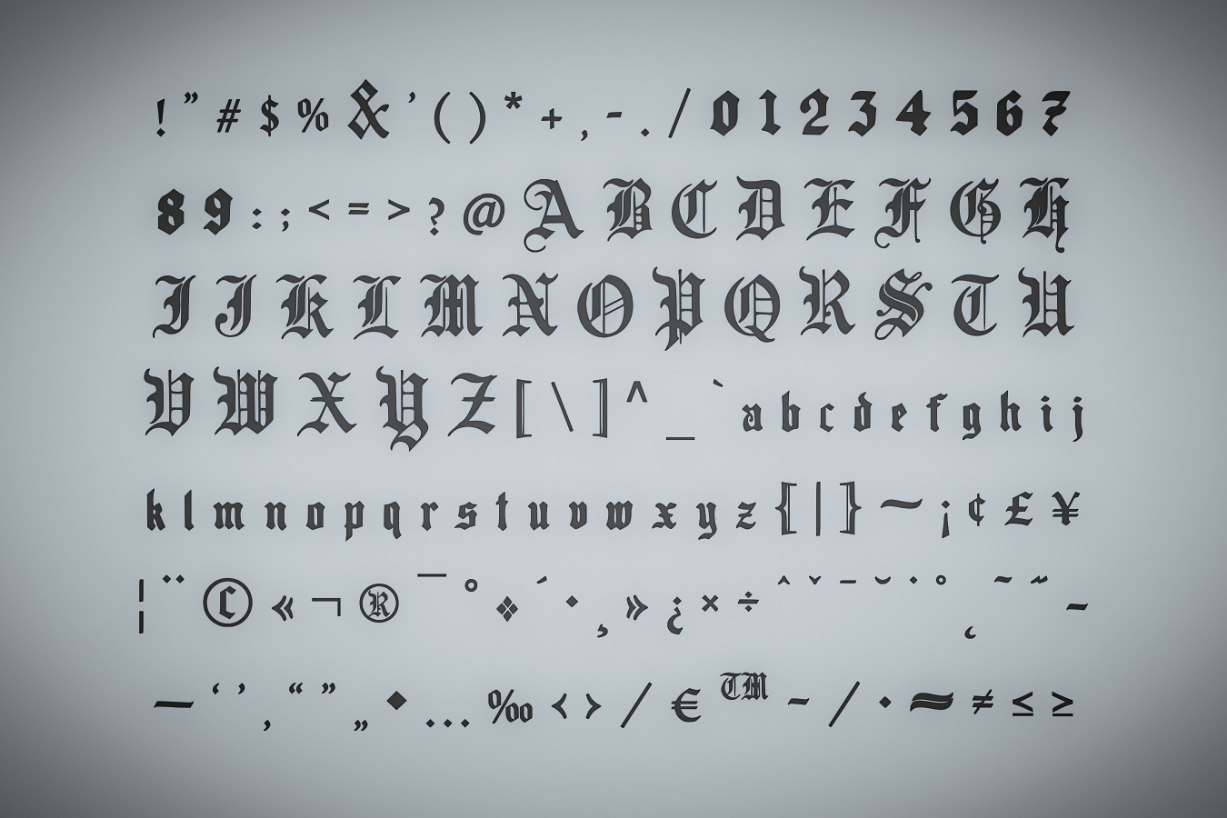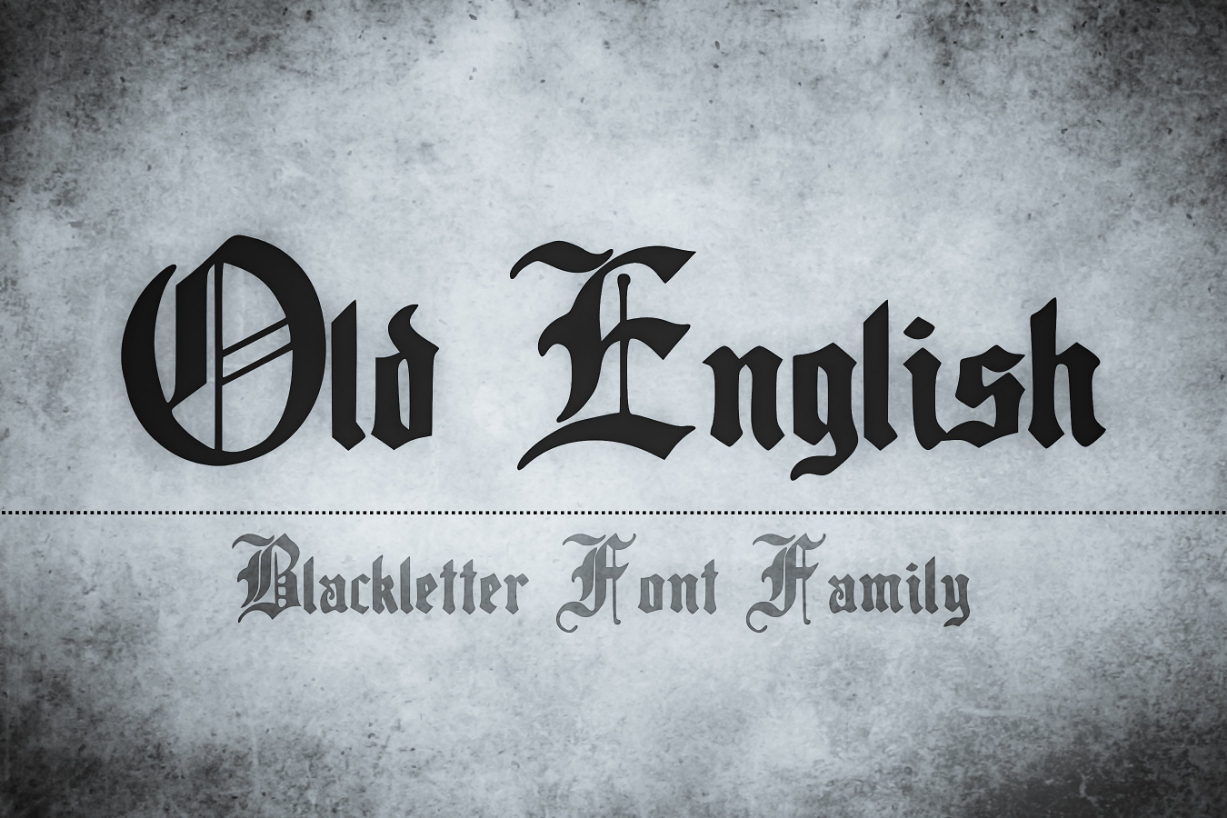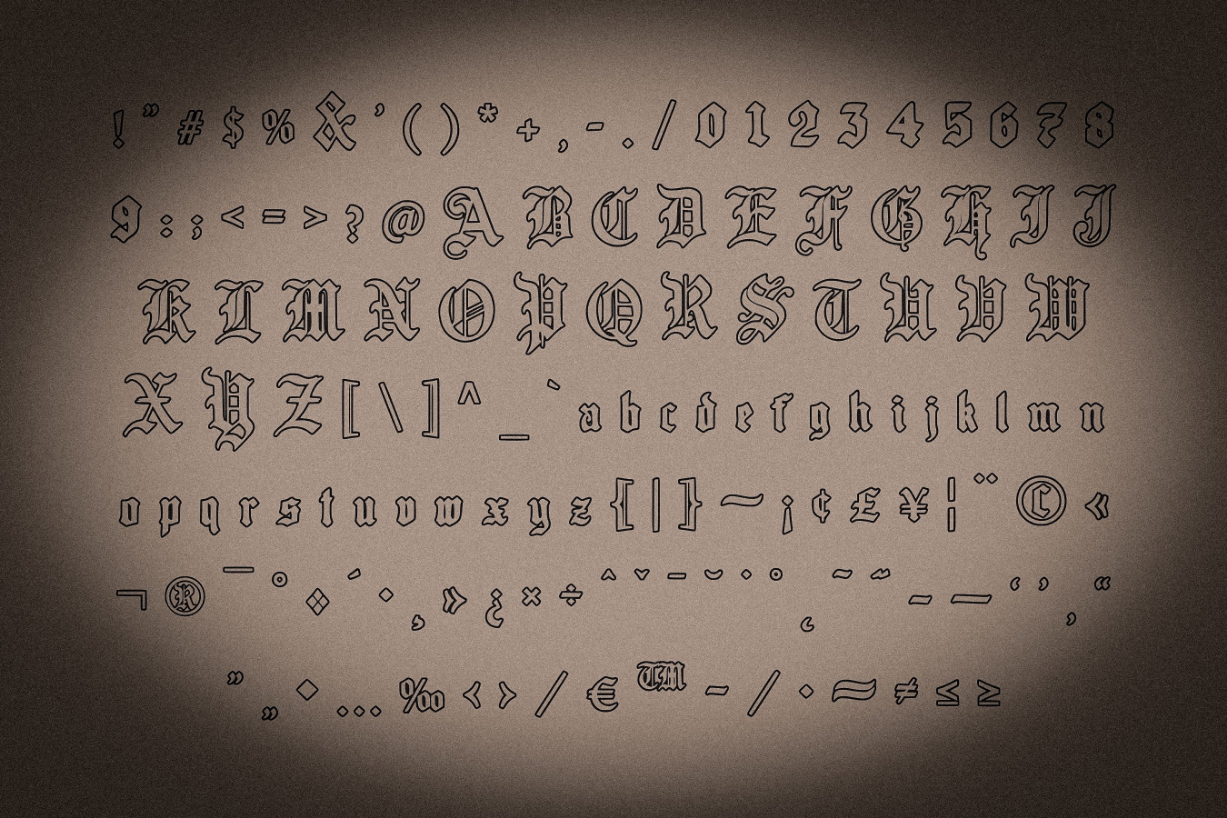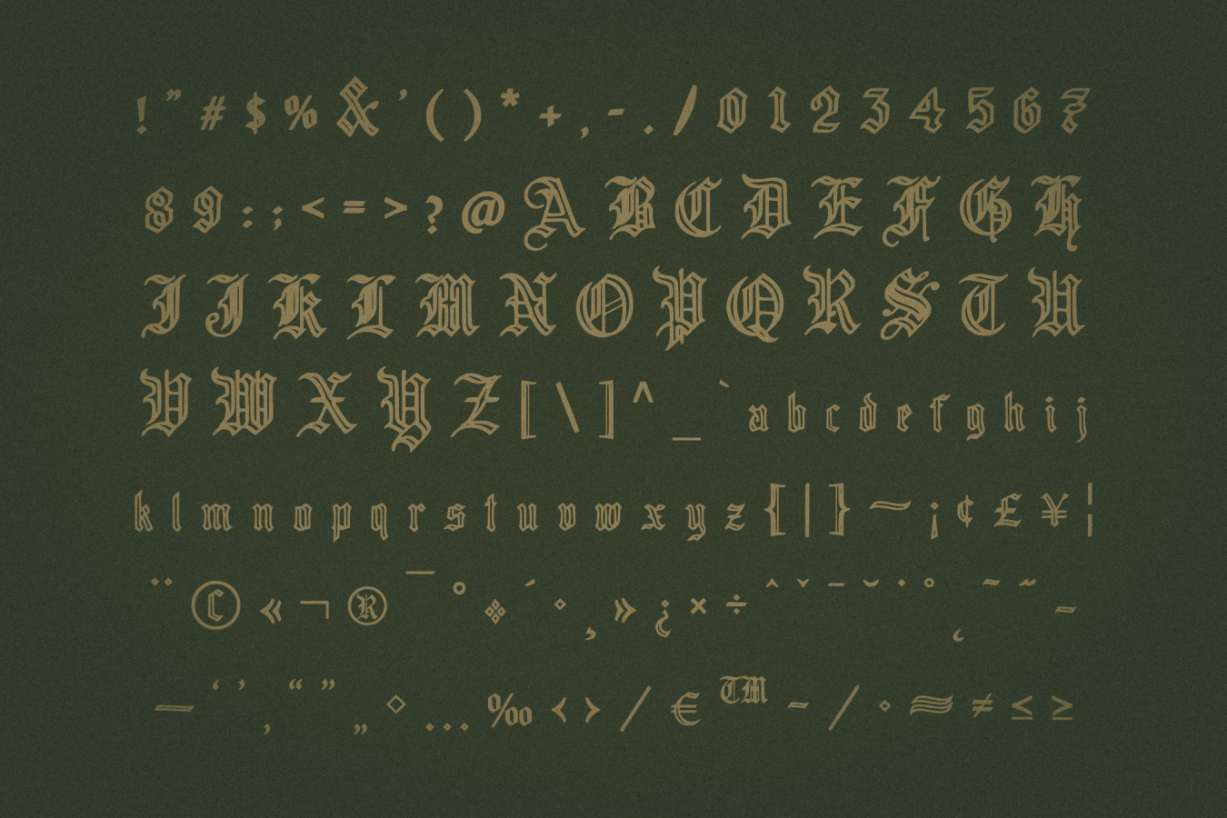
Old English Font
About Old English Font
Old English is a splendid antique blackletter font. With its unique medieval vibe, this font is suitable for all your historical-themed projects.